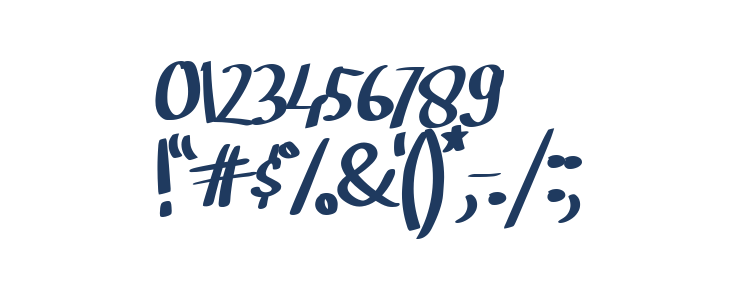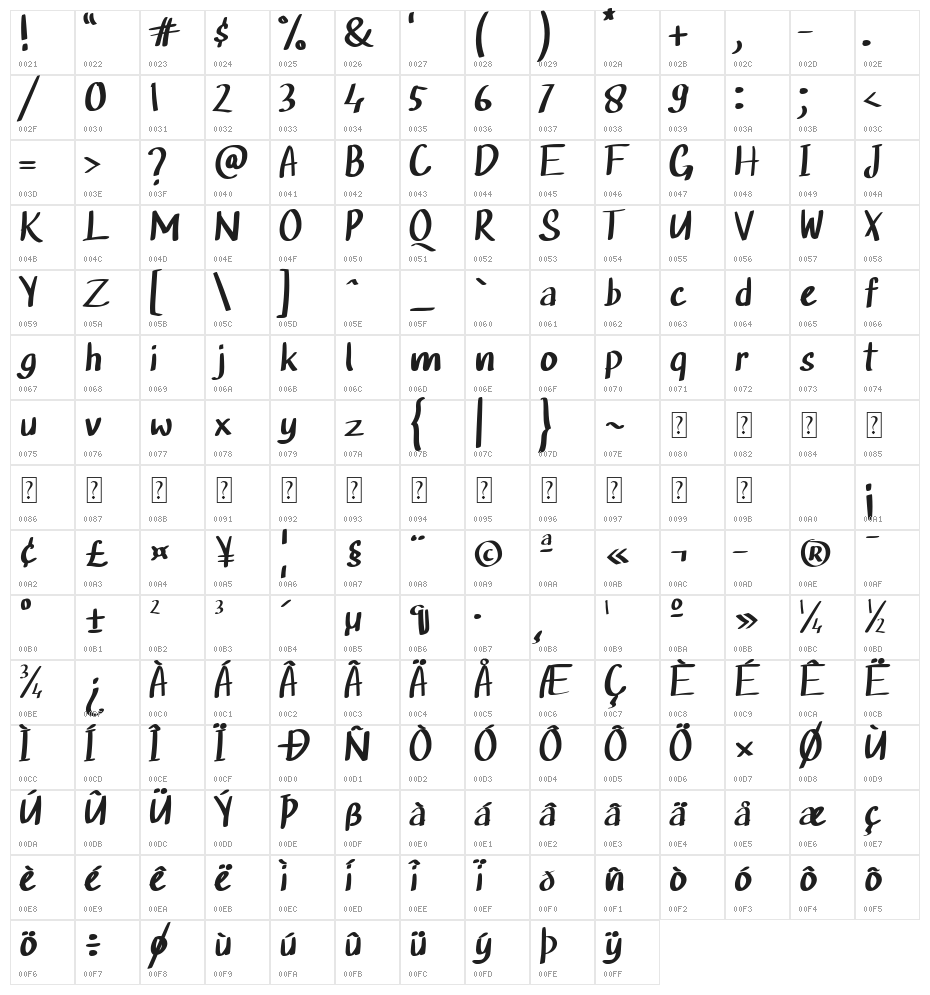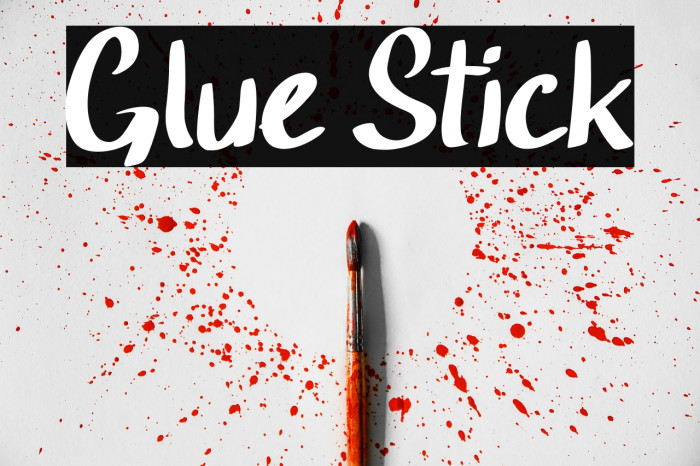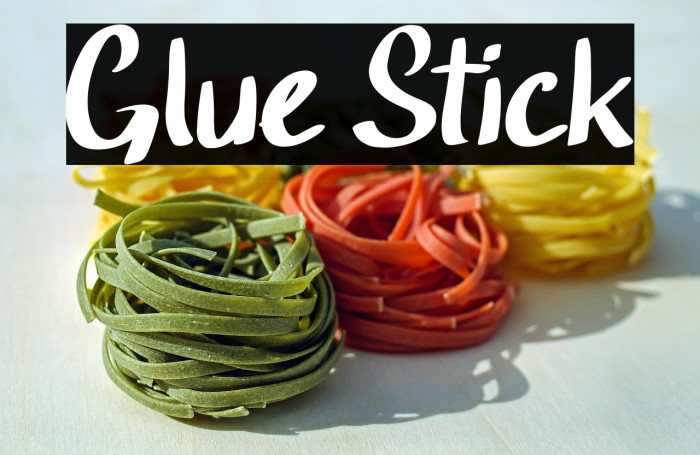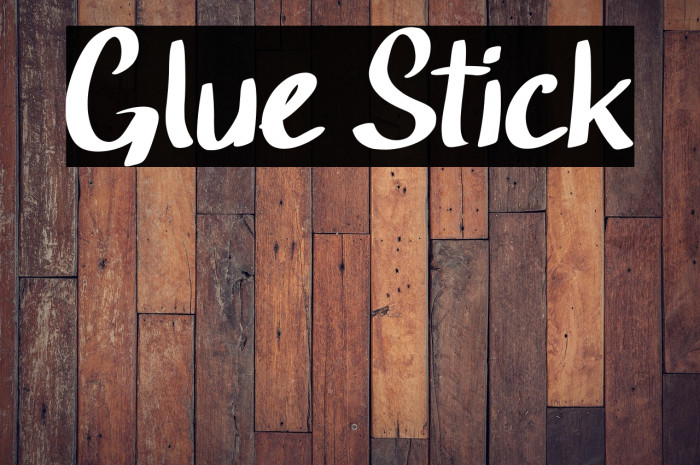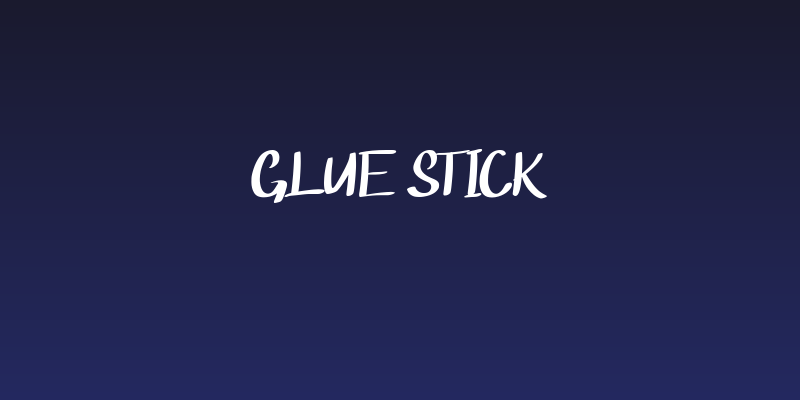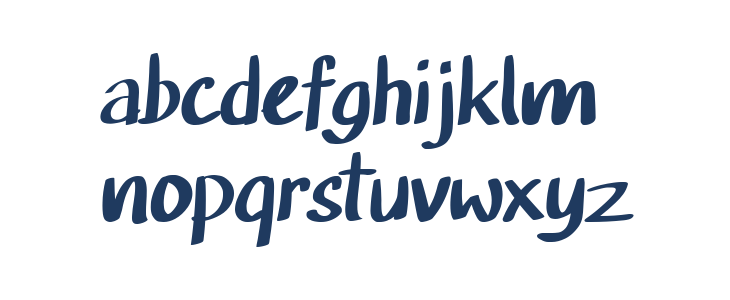
Glue Stick Font
Glue Stick Description
This font exudes a playful and energetic vibe, characterized by its bold and slightly irregular strokes that mimic the fluidity of handwriting. The letters are crafted with a brush-like appearance, giving them a dynamic and lively feel. The uppercase characters are tall and slightly narrow, while the lowercase letters maintain a consistent flow with rounded edges. The numbers and special characters follow the same energetic style, ensuring a cohesive look across all elements. The font's overall appearance is both casual and artistic, making it suitable for projects that require a touch of creativity and informality.
| Proposed Projects | Ideal for greeting cards, posters, branding projects, and any design that benefits from a personal, artistic touch. |